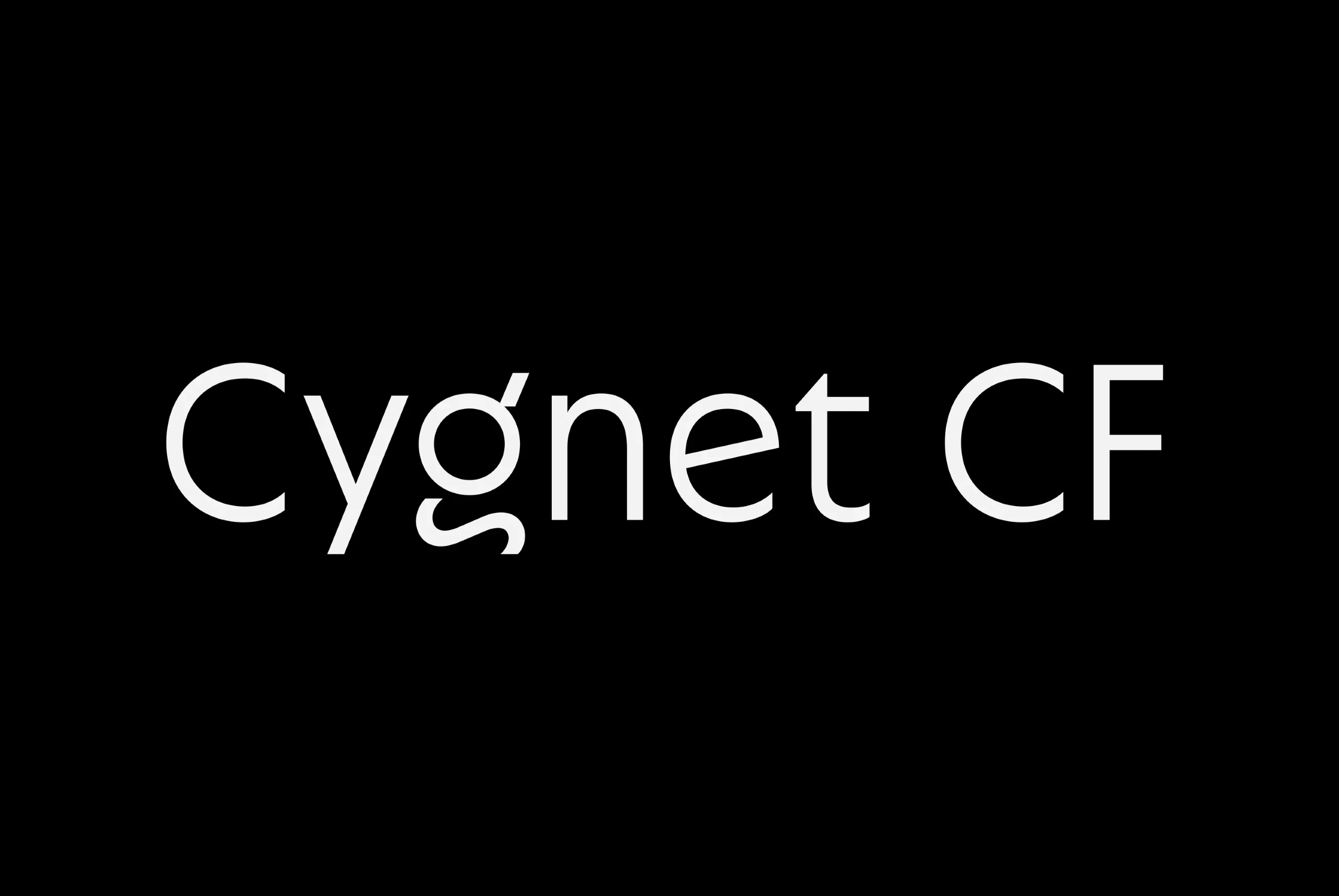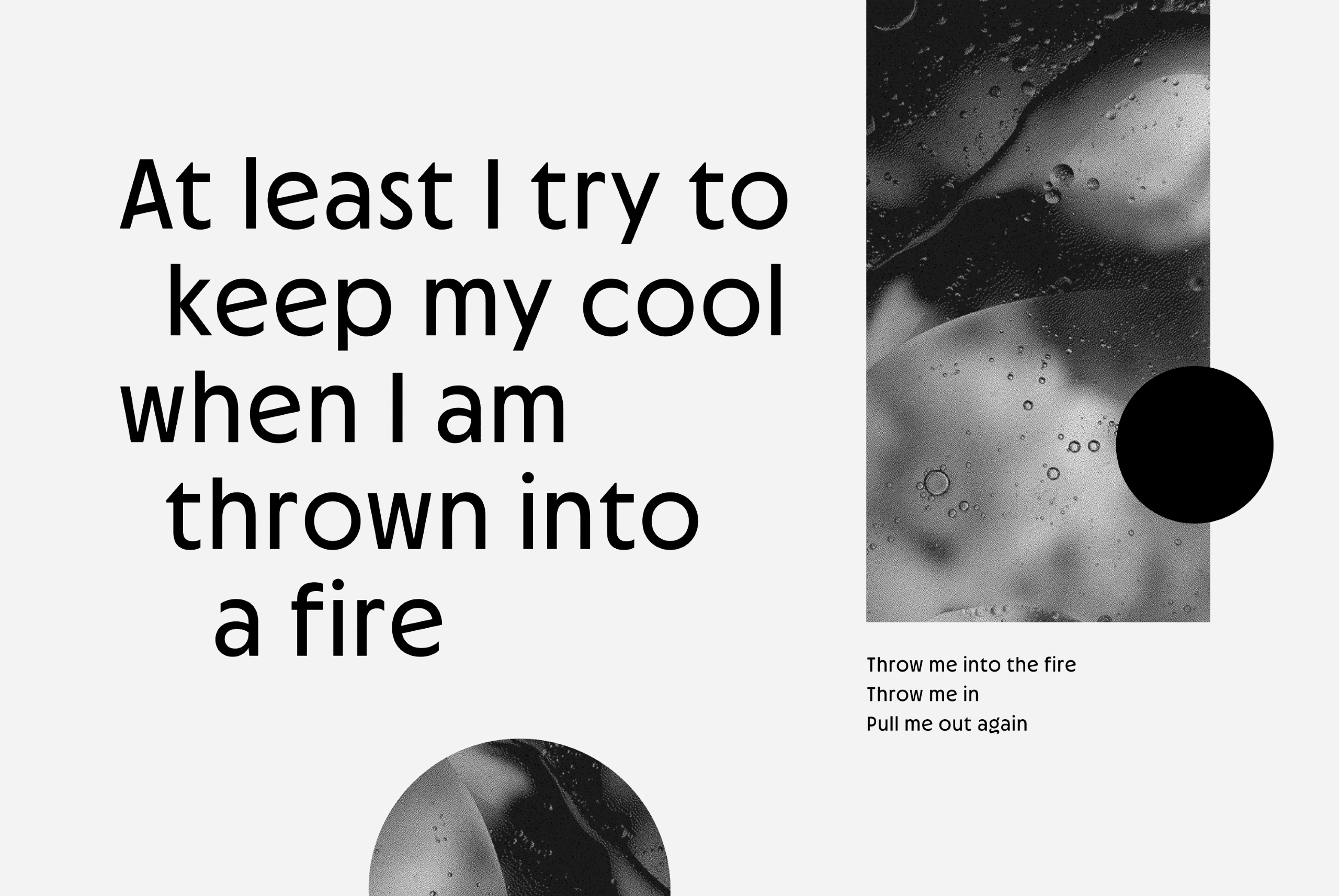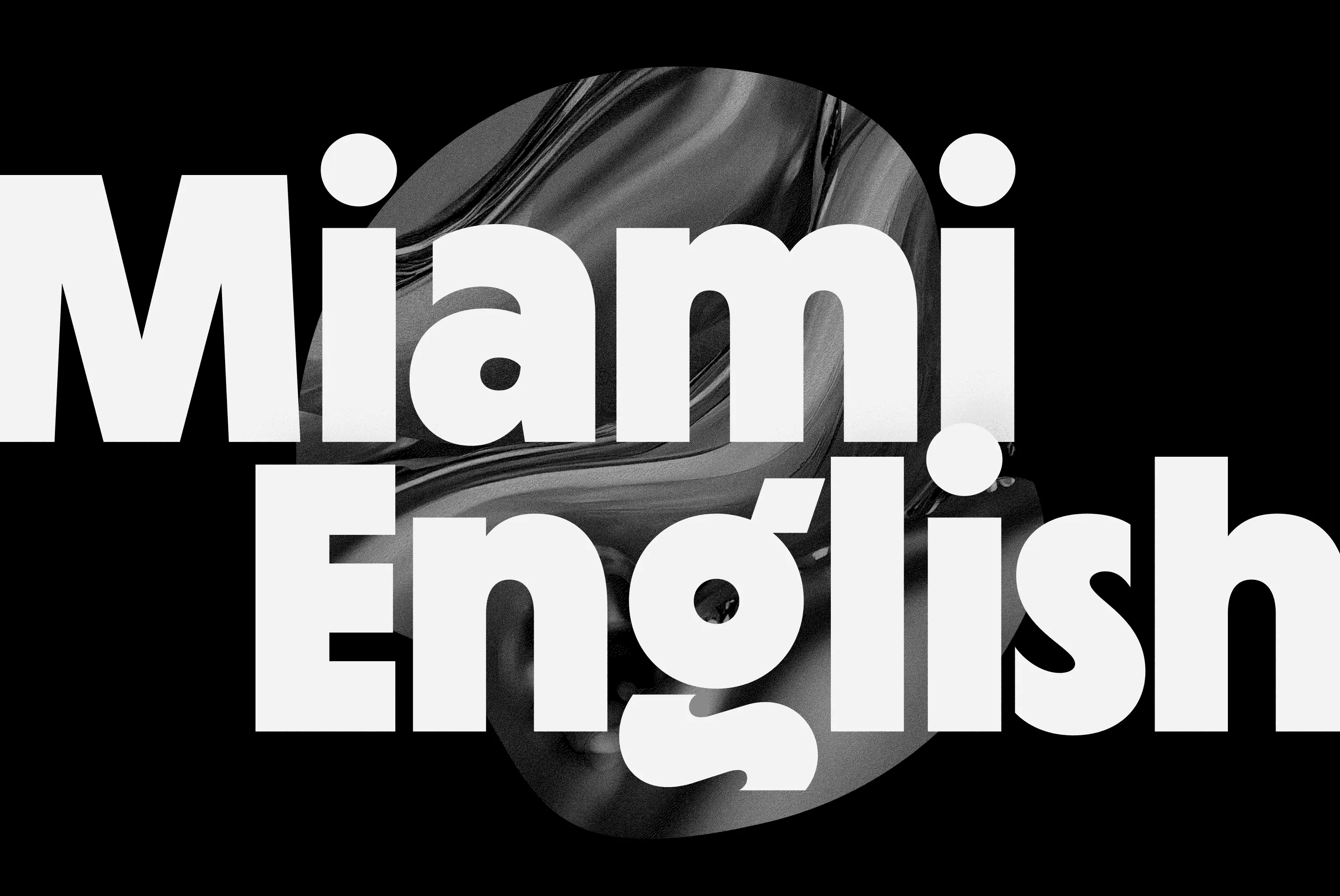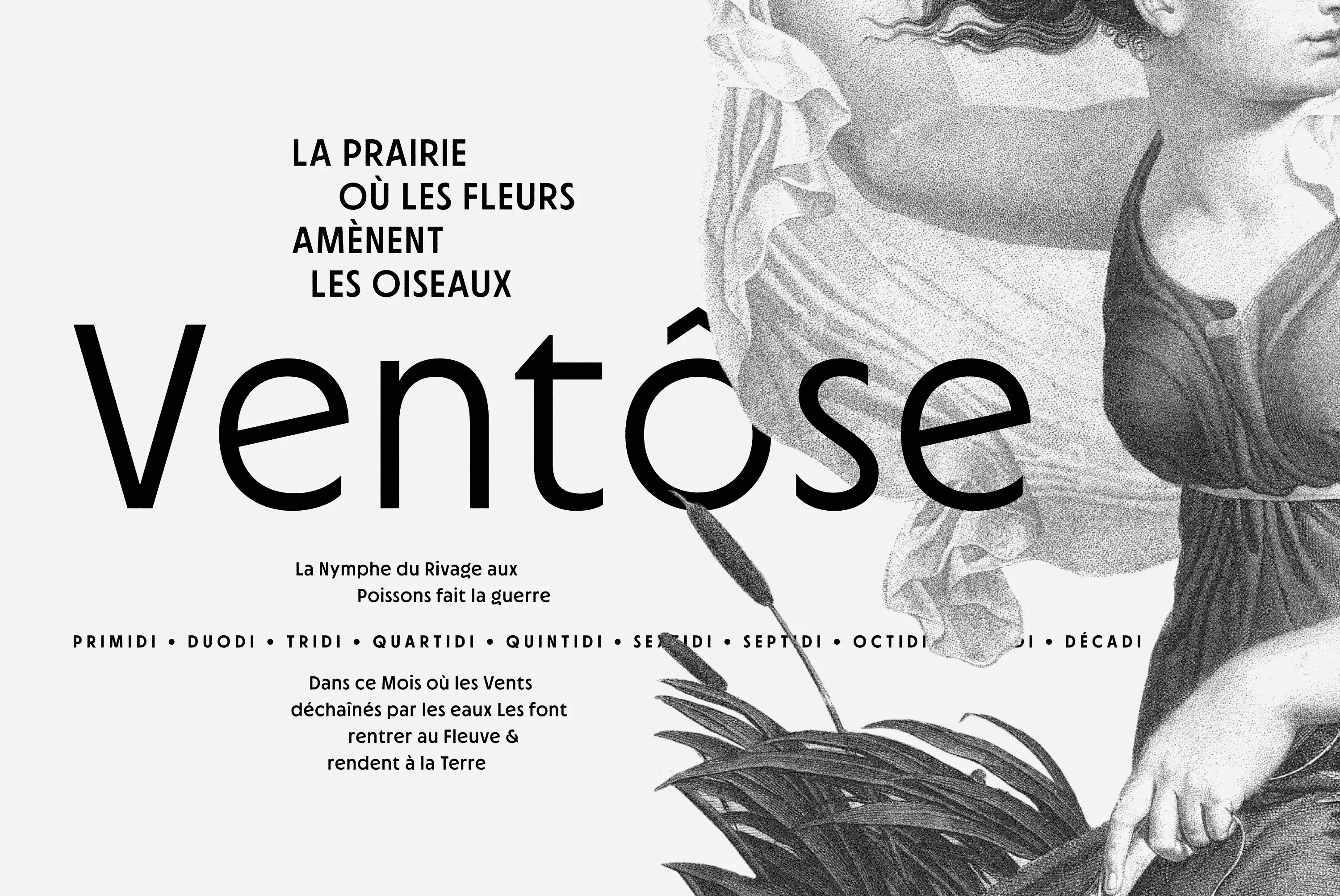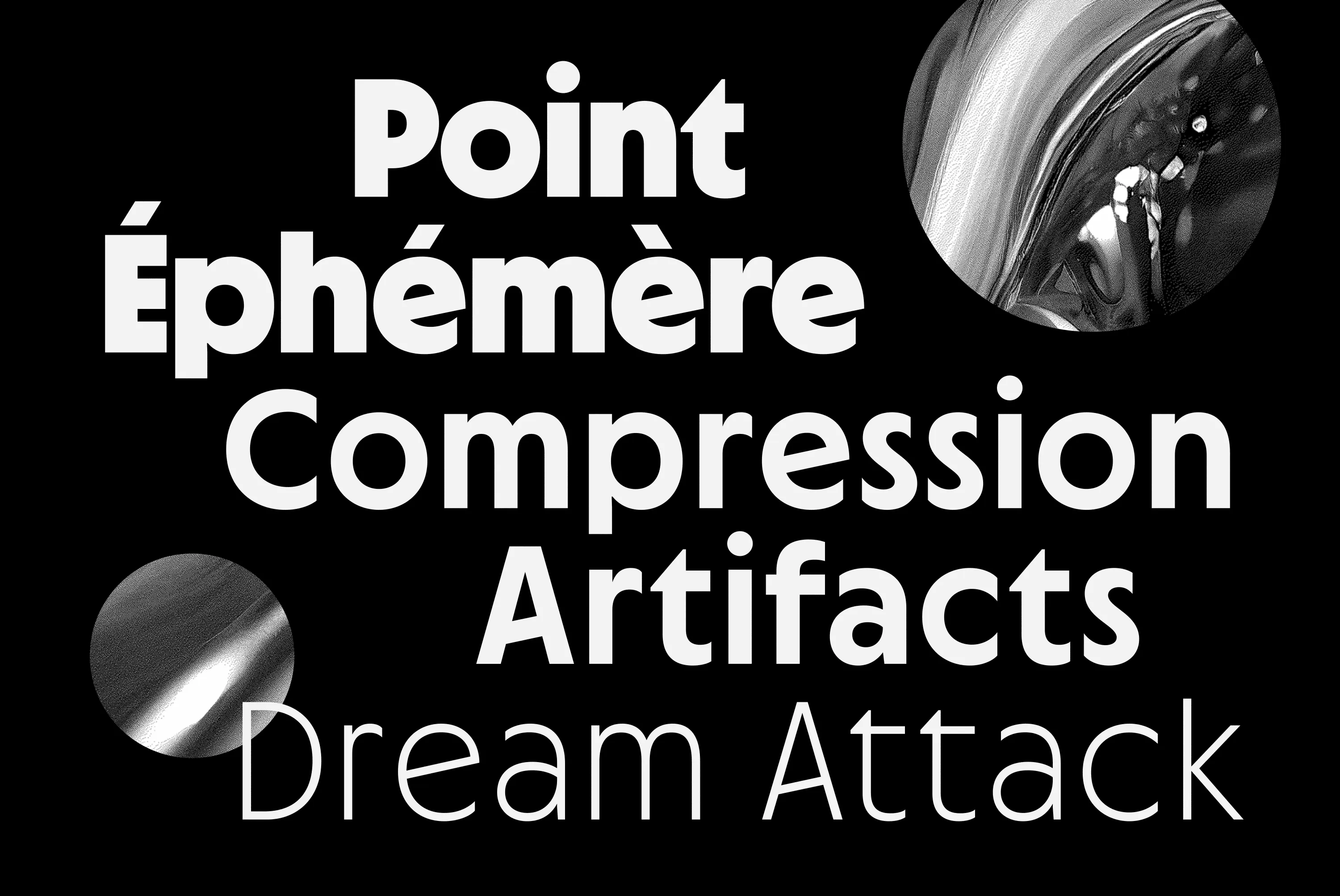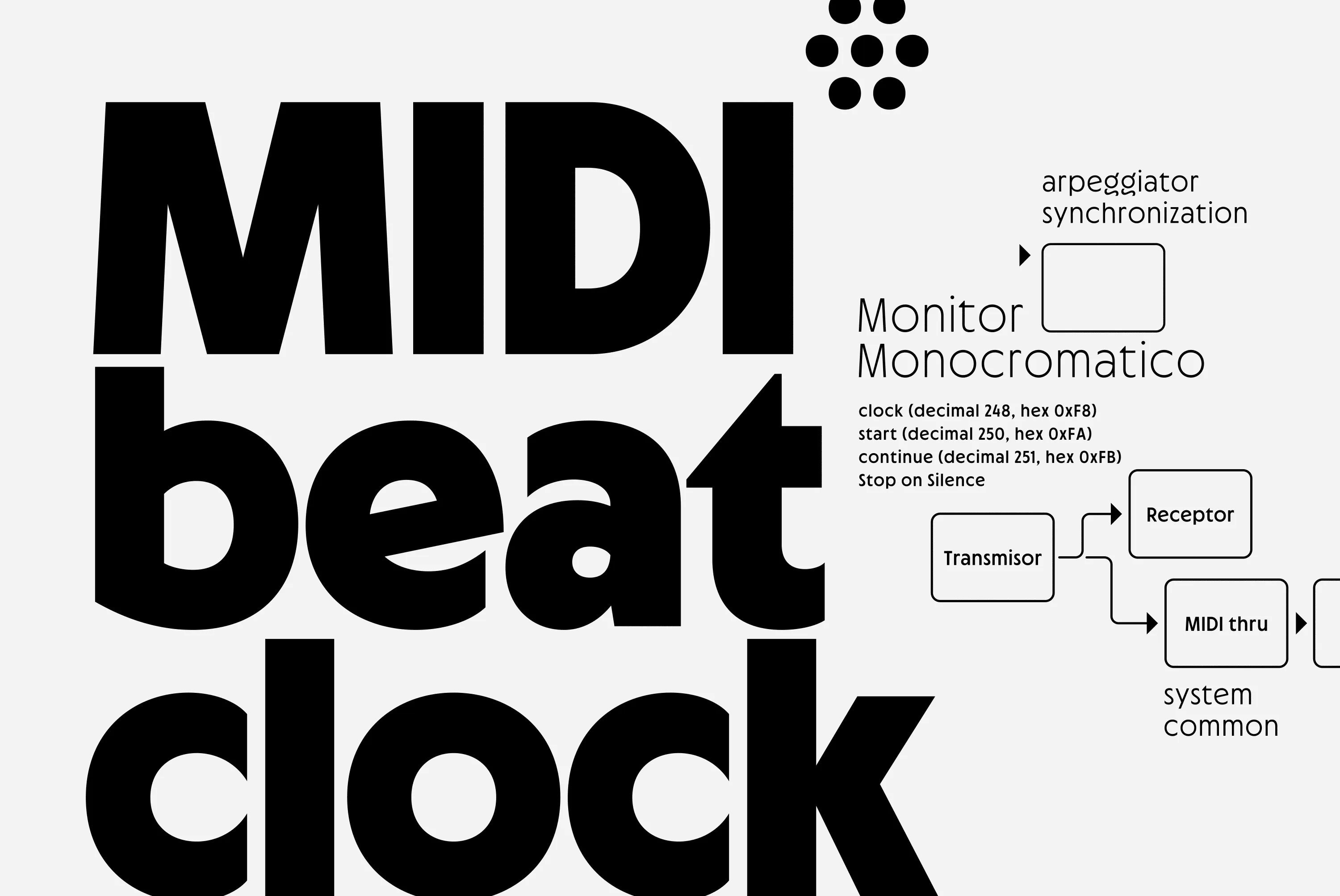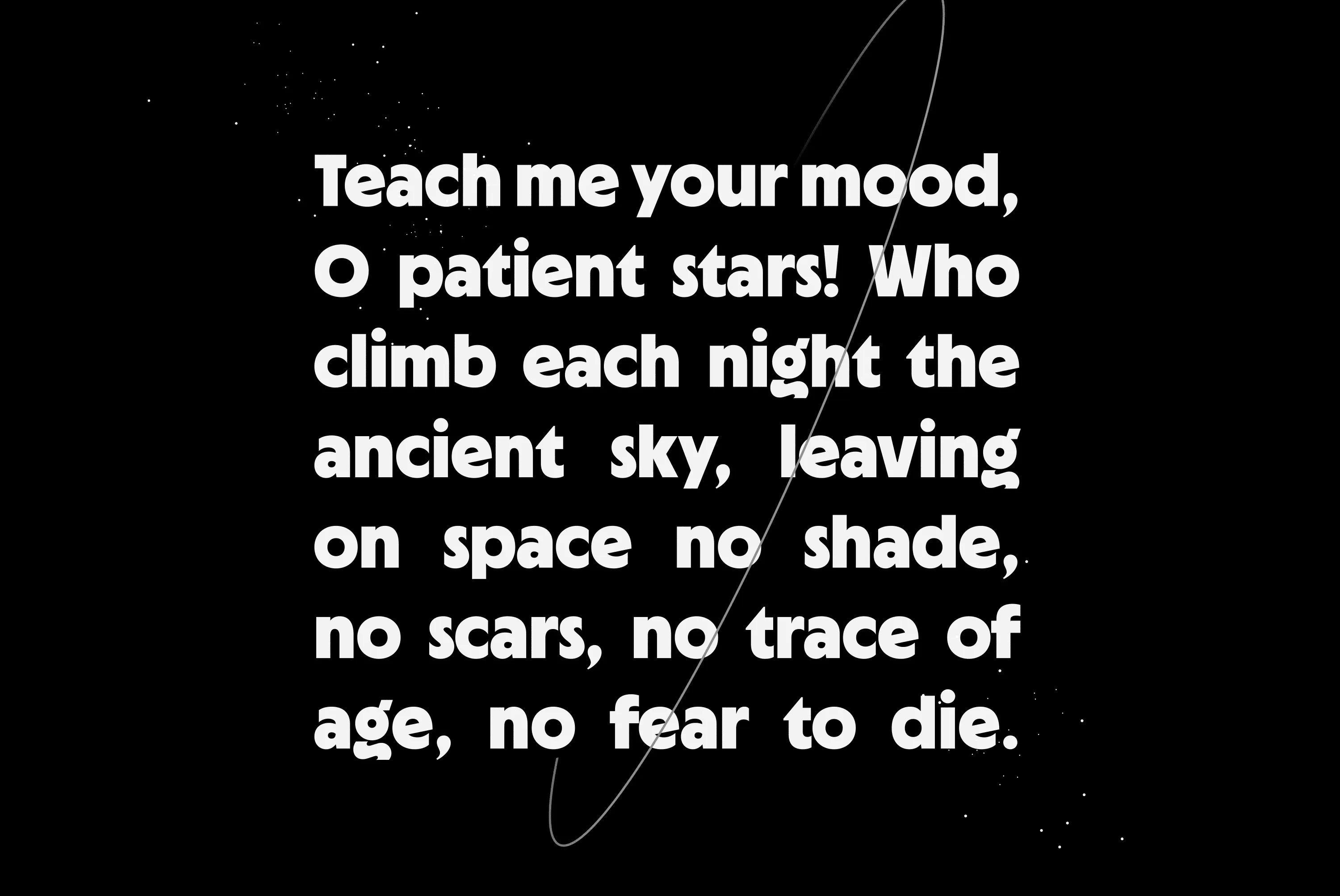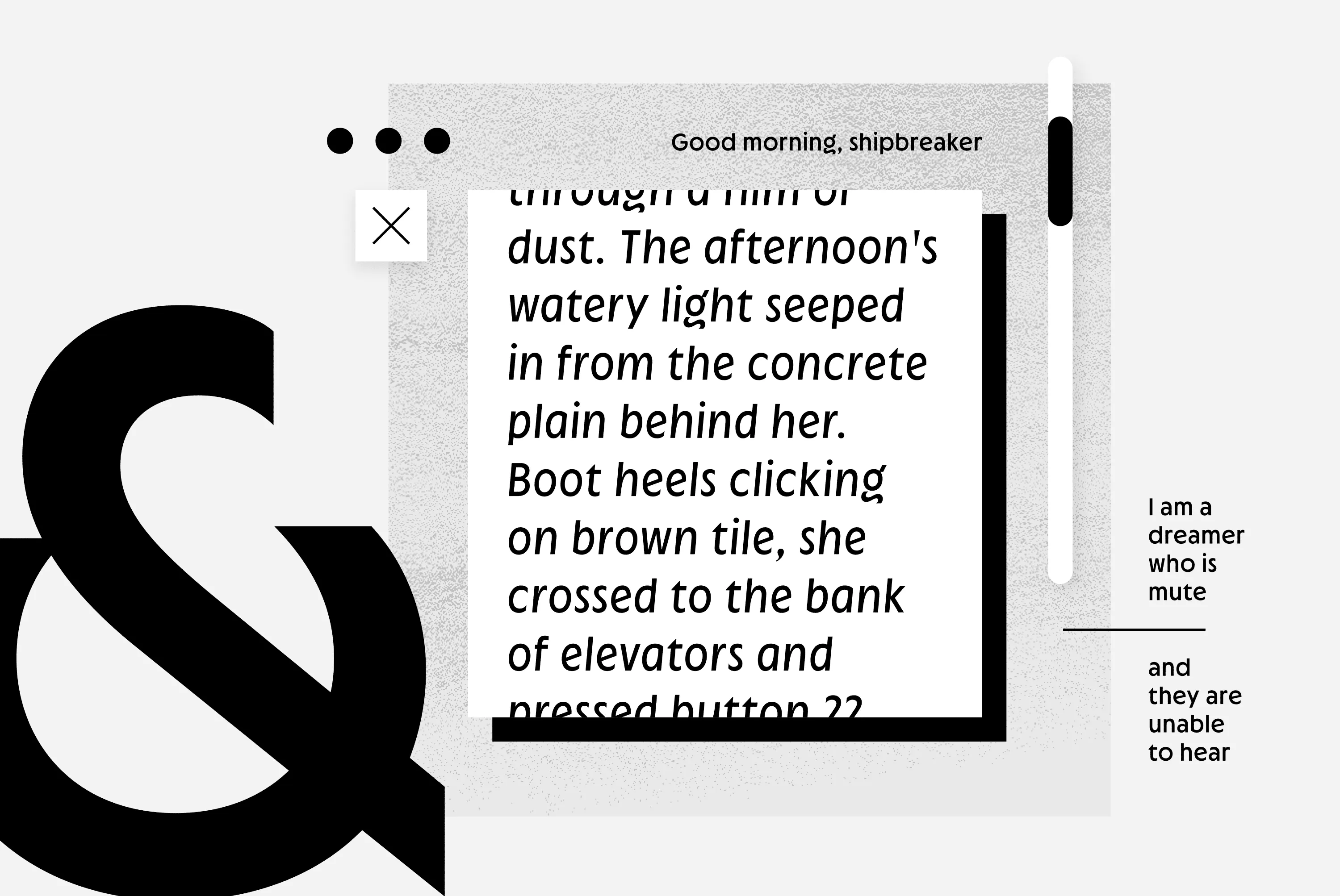
Cygnet
Cygnet CF charms with classic warmth and curious verve. An absurdly generous x-height makes this surprisingly readable and versatile display typeface perfect for headlines, captions, logos, and more.
nine Weights in Latin & Vietnamese Script
Language support includes Catalan, Chinese Pinyin, Croatian, Czech, Danish, Dutch, English, Filipino, Finnish, French, Fula, German, Hungarian, Indonesian, Italian, Latvian, Malay, Maltese, Norwegian, Polish, Portuguese, Romanian, Slovak, Slovenian, Spanish, Swedish, Turkish, Vietnamese